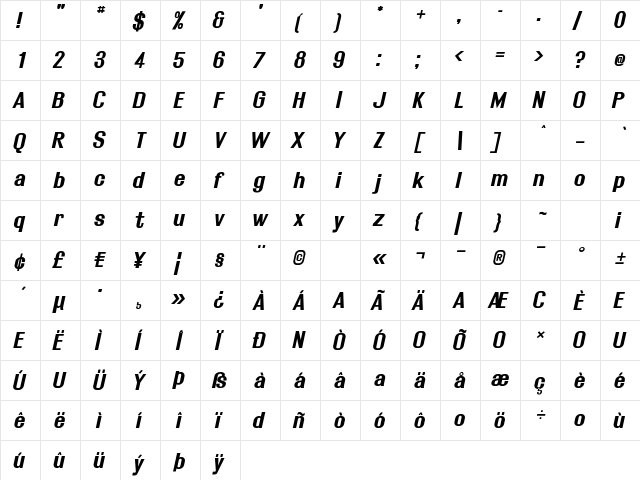
Rollout Bold Oblique
Design Context for Rollout Typeface
Rollout is a composed and adaptable typeface that performs quietly and consistently across a wide range of design contexts. The dynamic lean of this cut emphasises speed and emphasis in any layout. Its bold stroke weight gives it real presence on the page.
Pro Tip: Try Rollout for annotation and caption copy alongside an upright companion — the contrast in angle creates a dynamic but ordered typographic system.